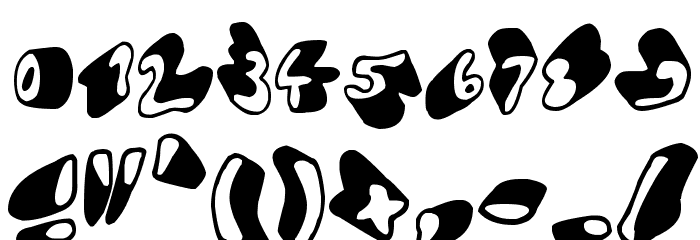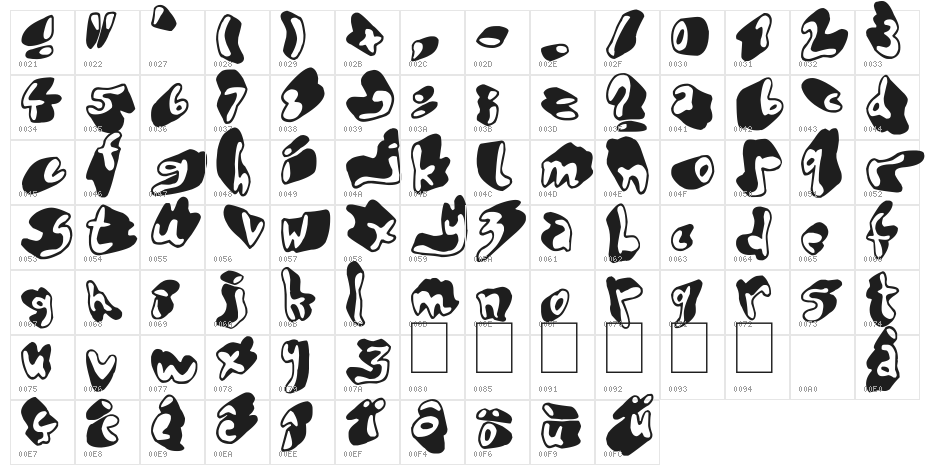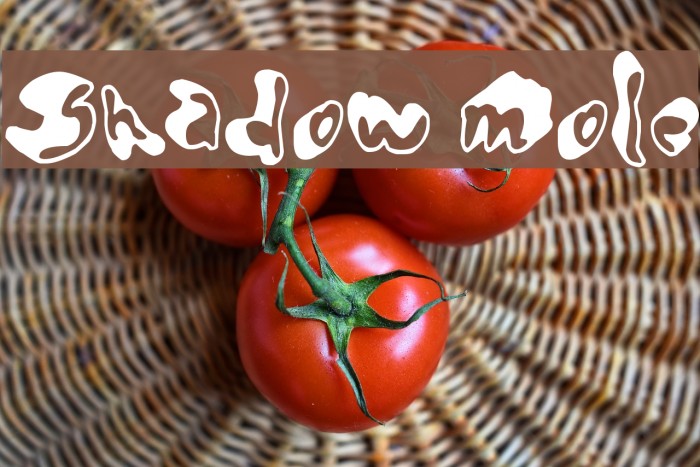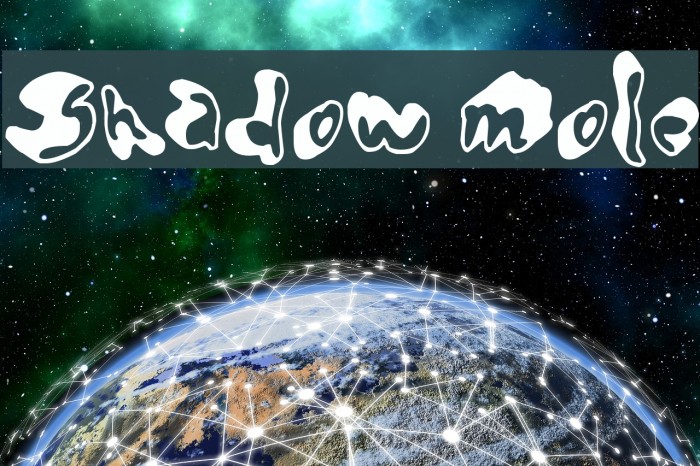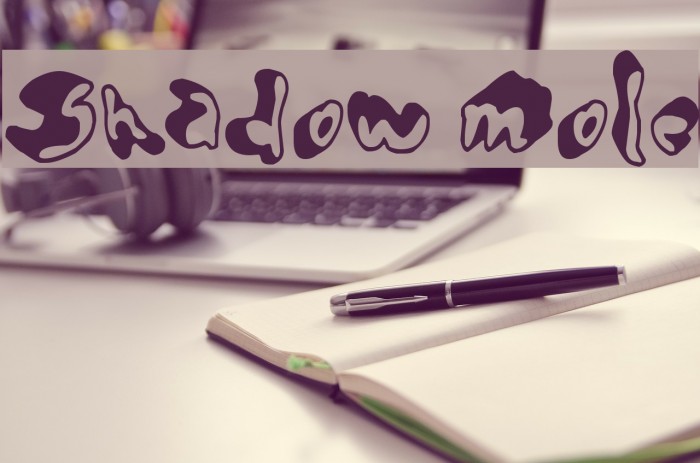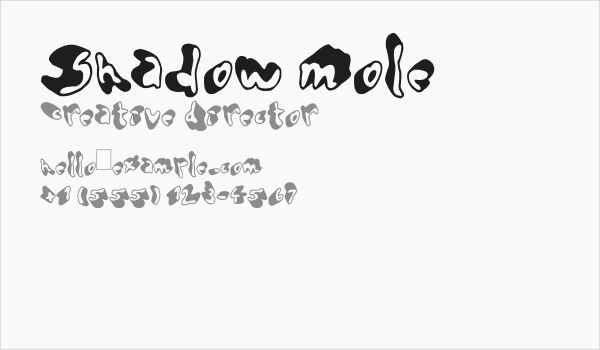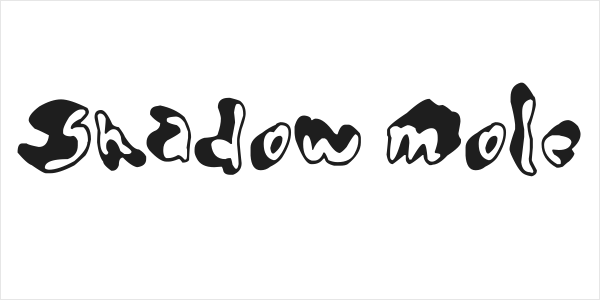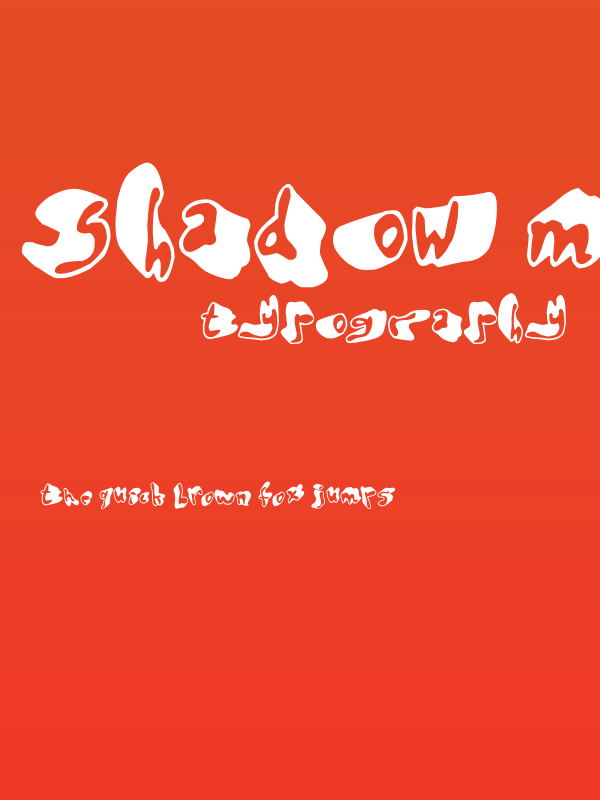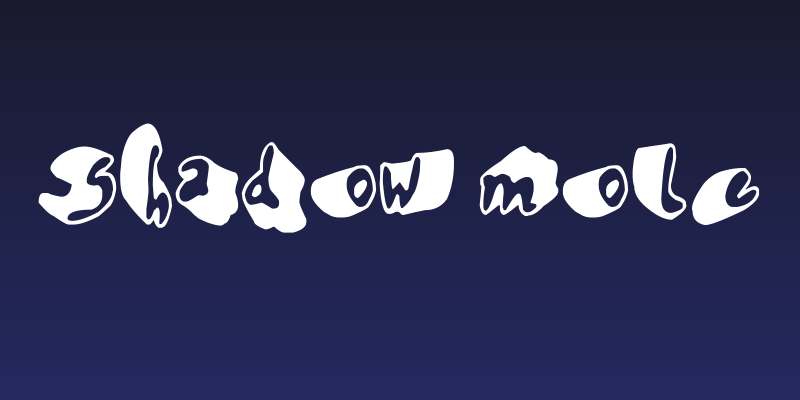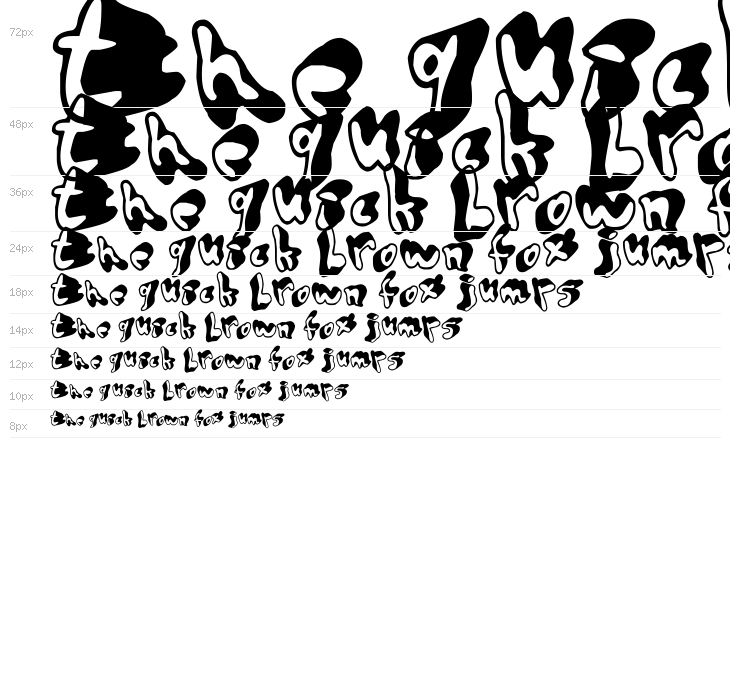
Shadow Mole Font
Shadow Mole Description
This font features a playful and bold design with a shadow effect that gives each character a three-dimensional appearance. The letters are irregular and organic, resembling hand-drawn shapes with a whimsical touch. The shadowing adds depth and a sense of movement, making it stand out in any design. The font includes both uppercase and lowercase letters, numerals, and a variety of special characters, all maintaining the same artistic style. Its unique appearance makes it suitable for creative and informal projects.
| Overall Style | Playful, Artistic |
| Proposed Projects | Ideal for children's books, playful branding, posters, and creative invitations. |